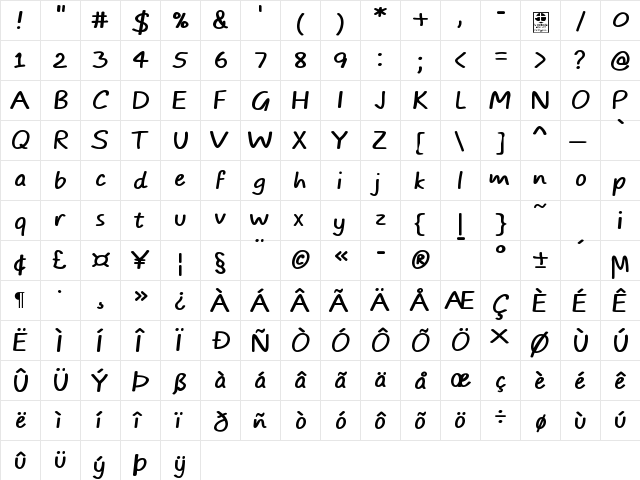
TYPO COMICS DEMO Regular
Regular · StudioTypo  ·
Design Context for TYPO COMICS DEMO Typeface
TYPO COMICS DEMO trades formality for fun, with bouncy, characterful letterforms that bring warmth and energy to any project.
Font Pairing: Pairs well with a rounded or humanist sans for body copy, maintaining the friendly tone without relying on TYPO COMICS DEMO to carry extended reading.
Pro Tip: Avoid using TYPO COMICS DEMO for long passages of text — it works best for headlines, labels, and short calls to action.